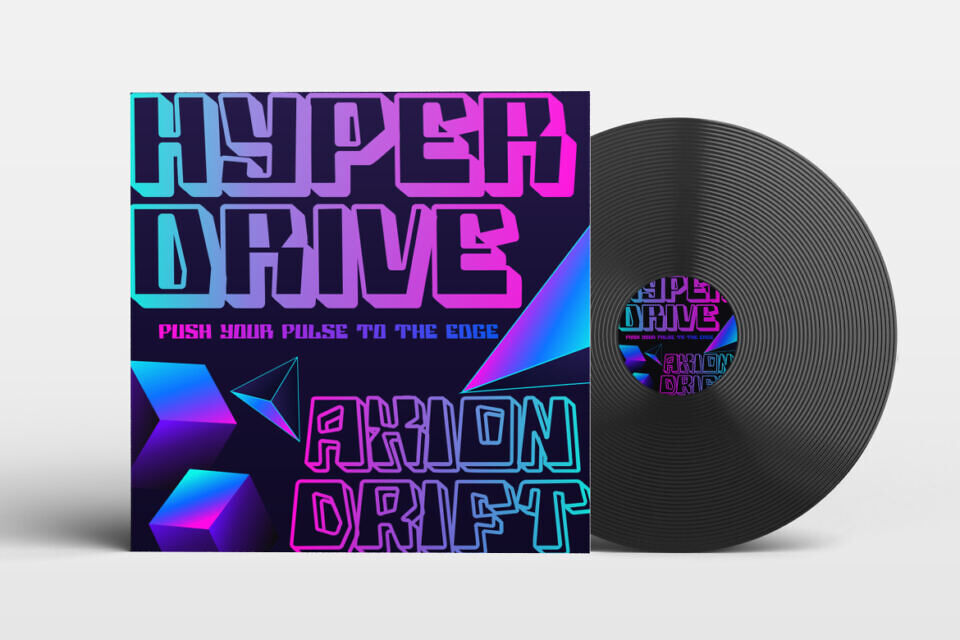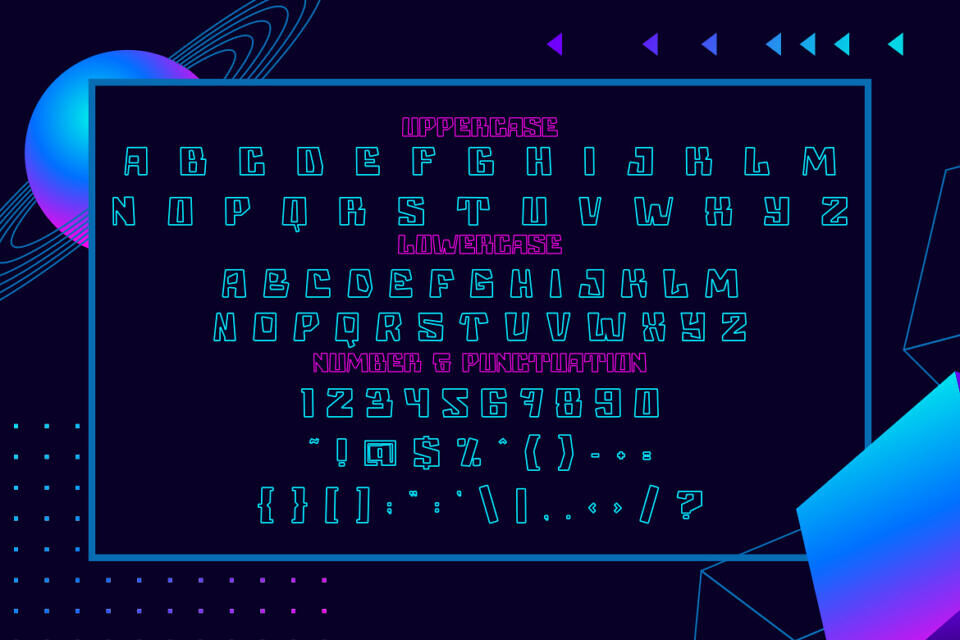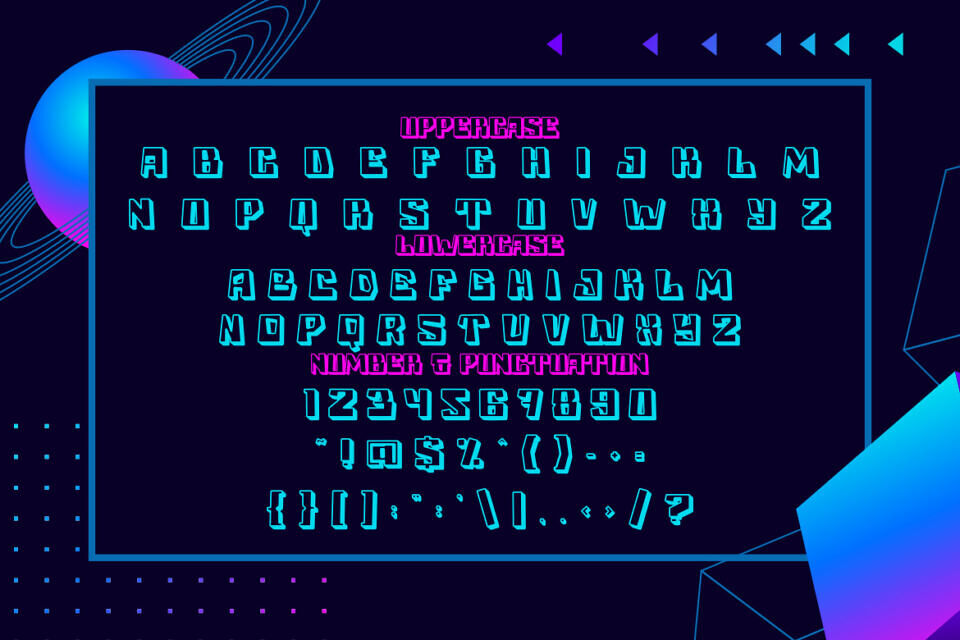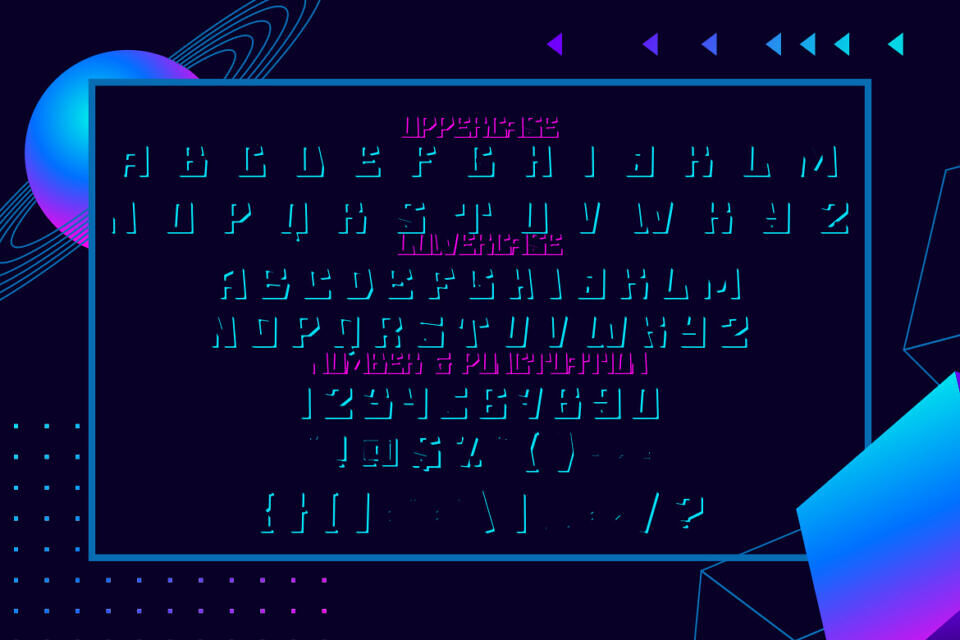
Holo Edge Font
Holo Edge is a modern display typeface built with strong geometric construction and confident proportions. Each letterform appears tall and bold, with solid outlines that define the shape clearly. The strokes feel consistent and balanced, giving the font a structured and technical character. Corners are firm and slightly angular, while curves remain controlled and precise. This balance creates a futuristic feel without becoming overly complex.
From a stylistic standpoint, Holo Edge Font fits cleanly into modern, tech-inspired, and digital-forward design spaces. It carries a contemporary tone that works well for logos, branding systems, headlines, posters, and advertising materials. The font also performs strongly in packaging, business identities, film booktitles,  covers, magazine layouts, stickers, and creative invitations.